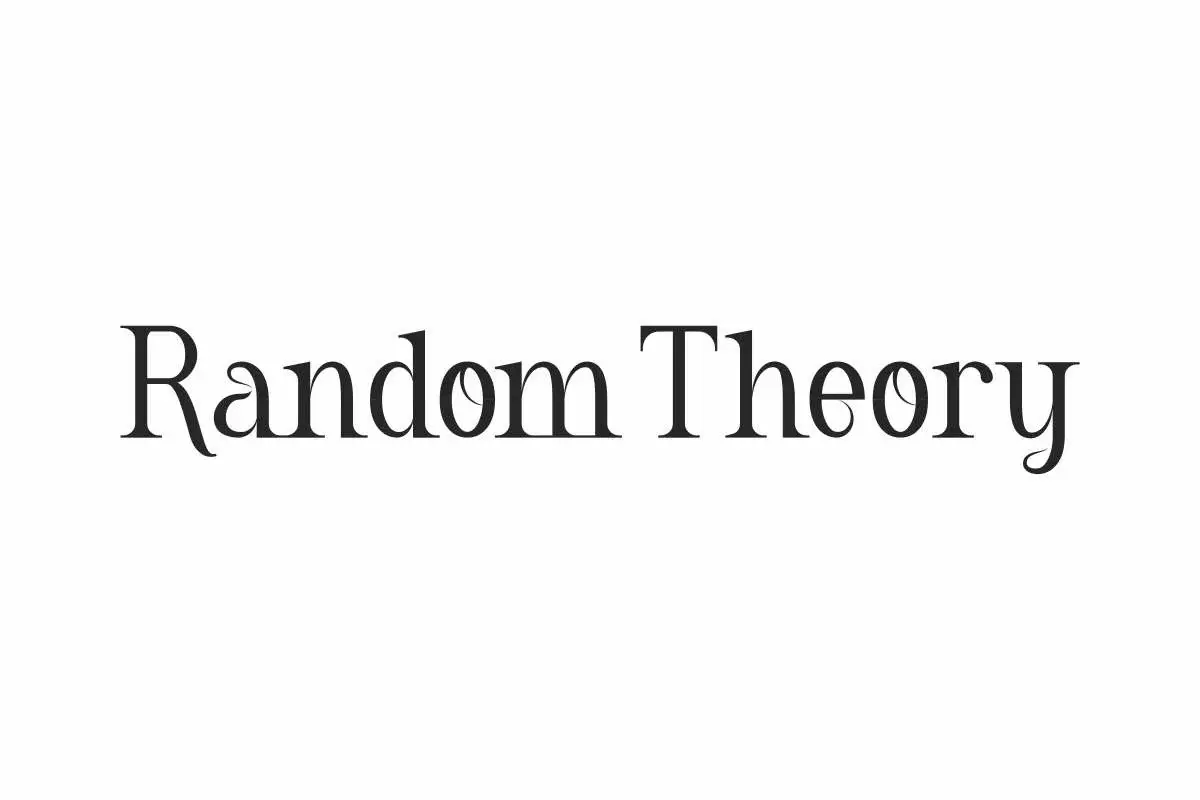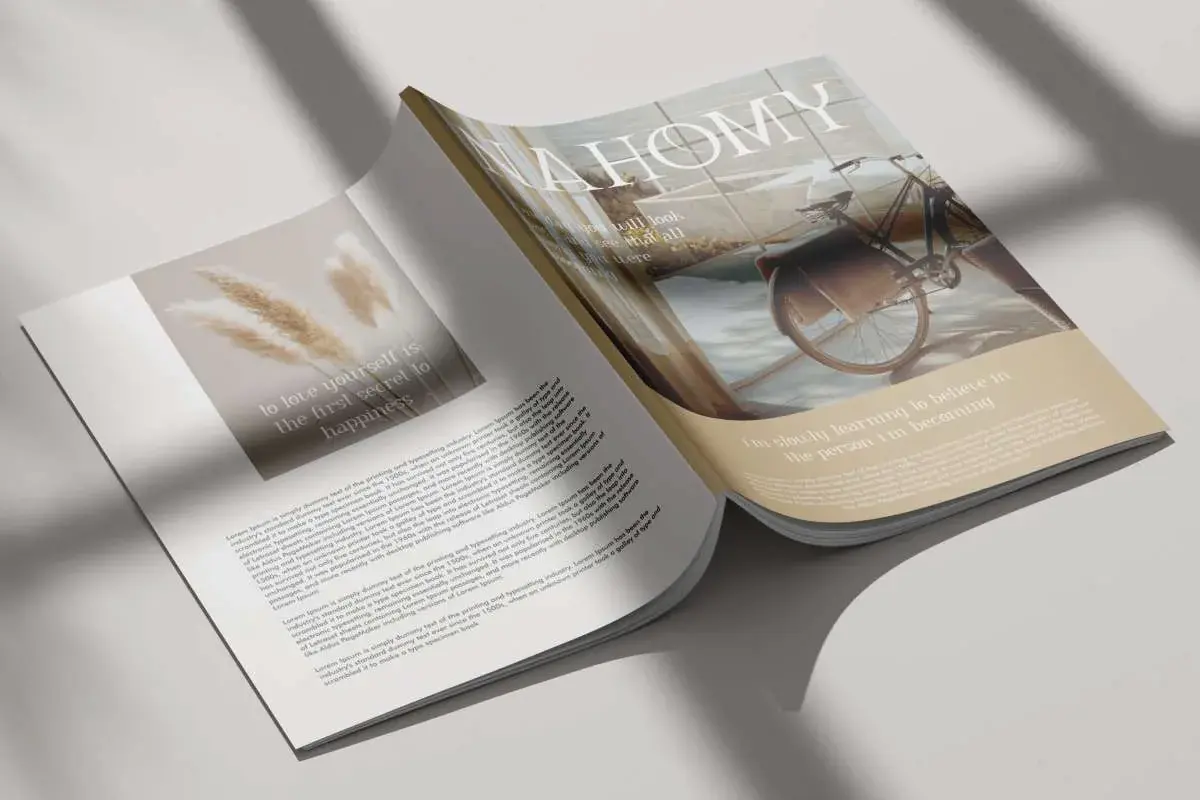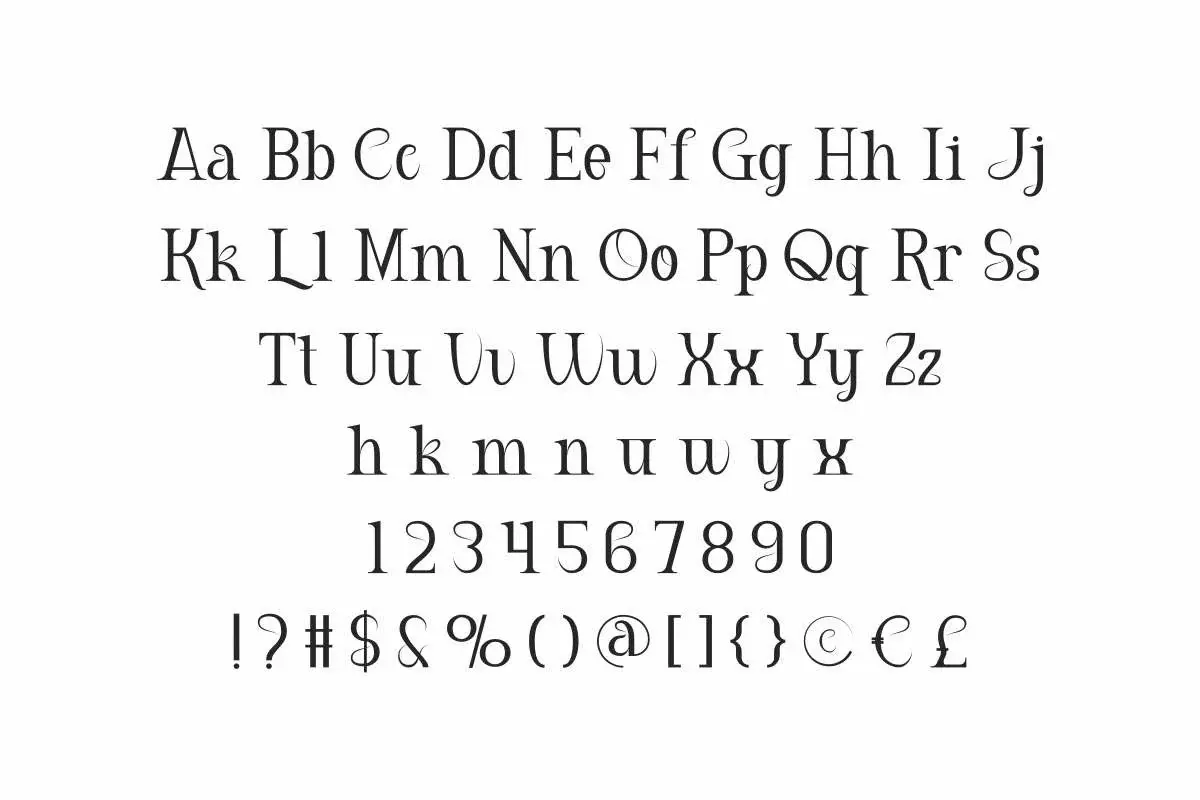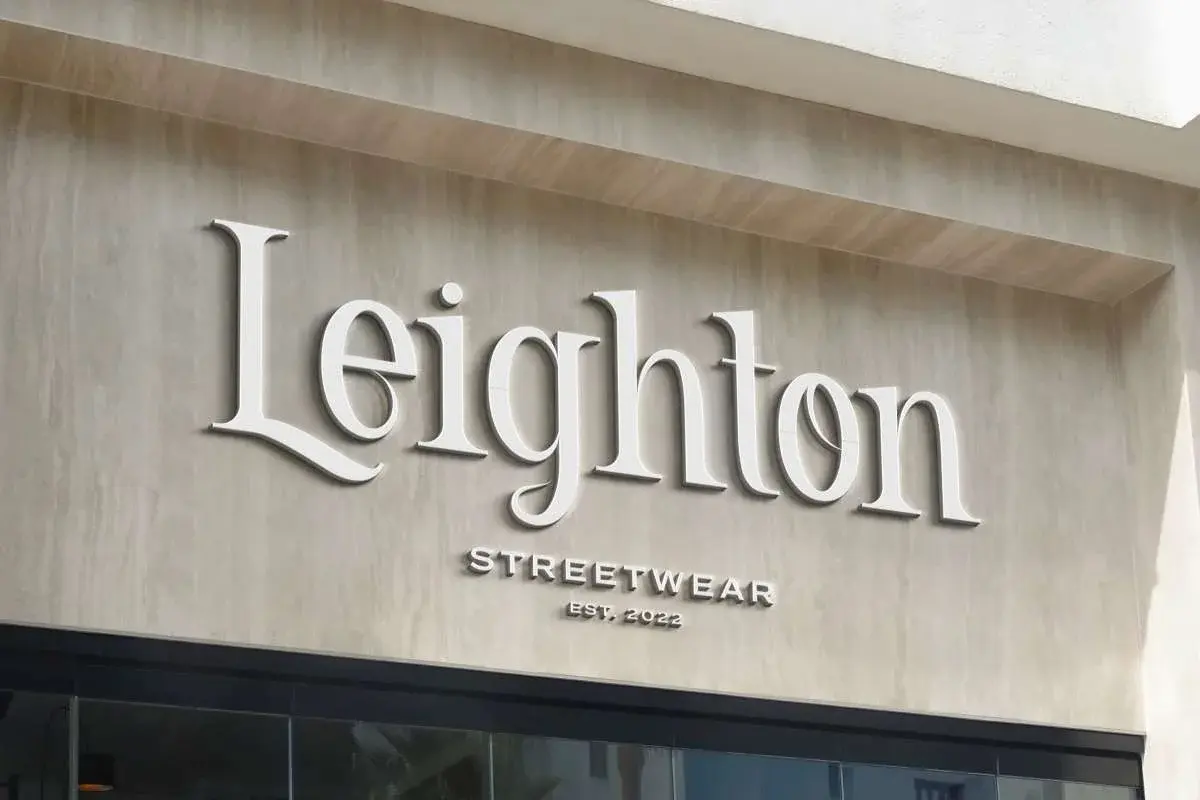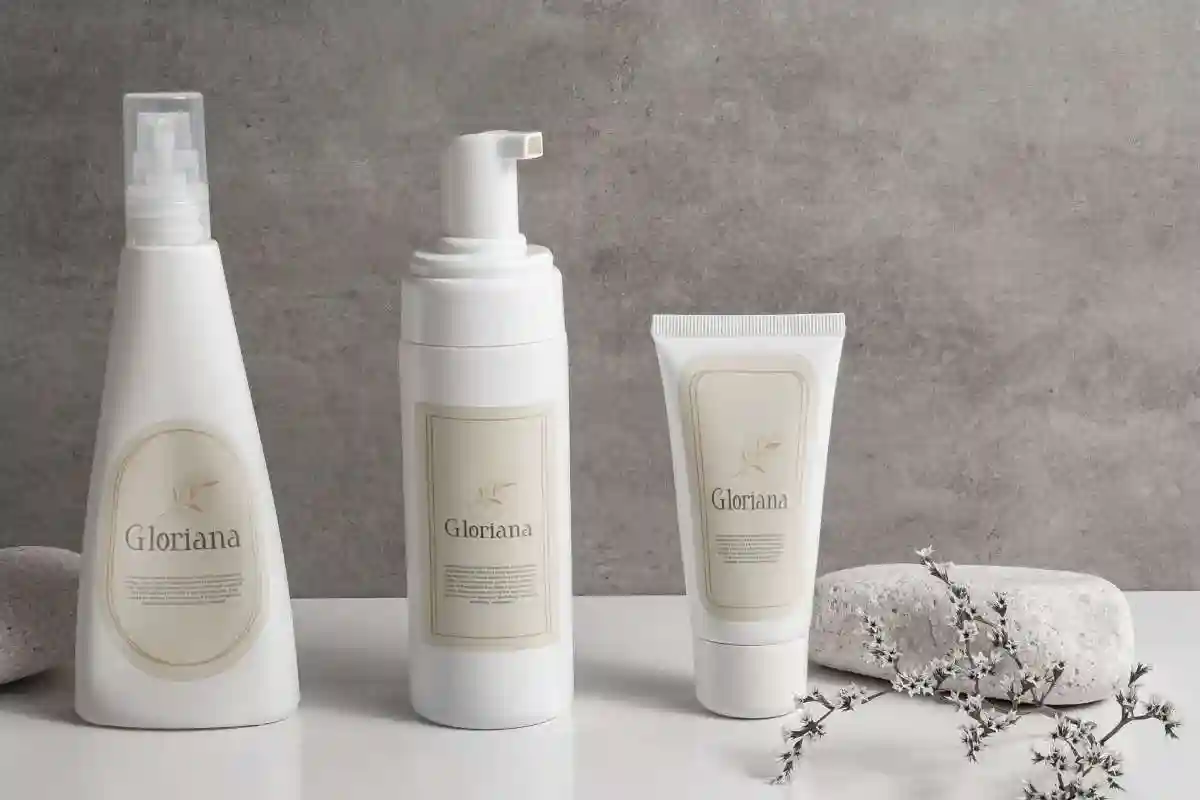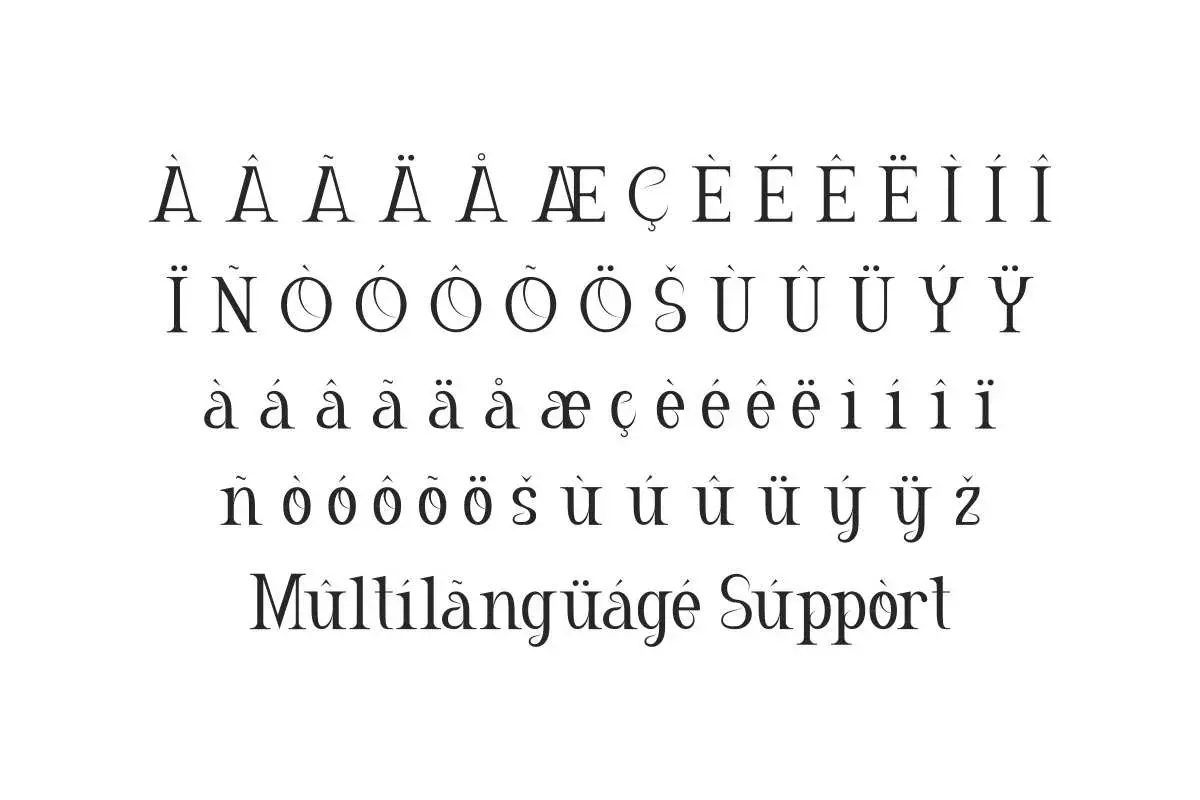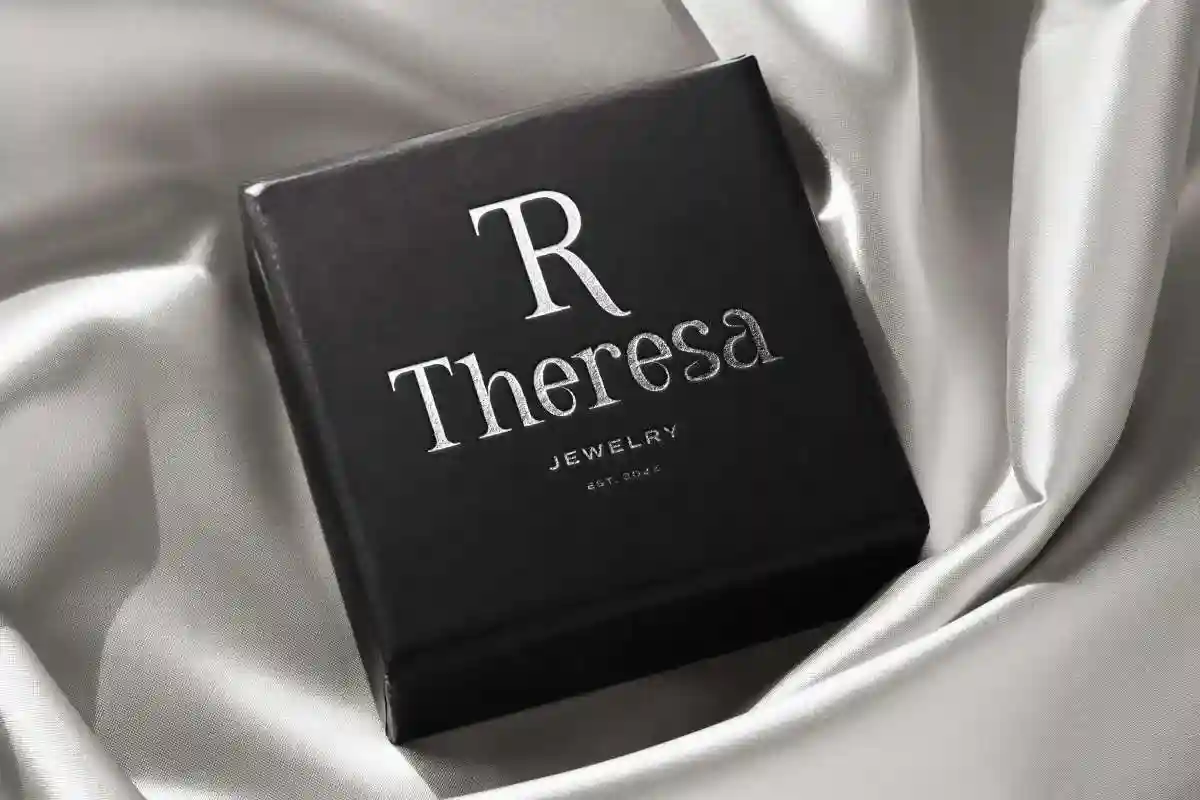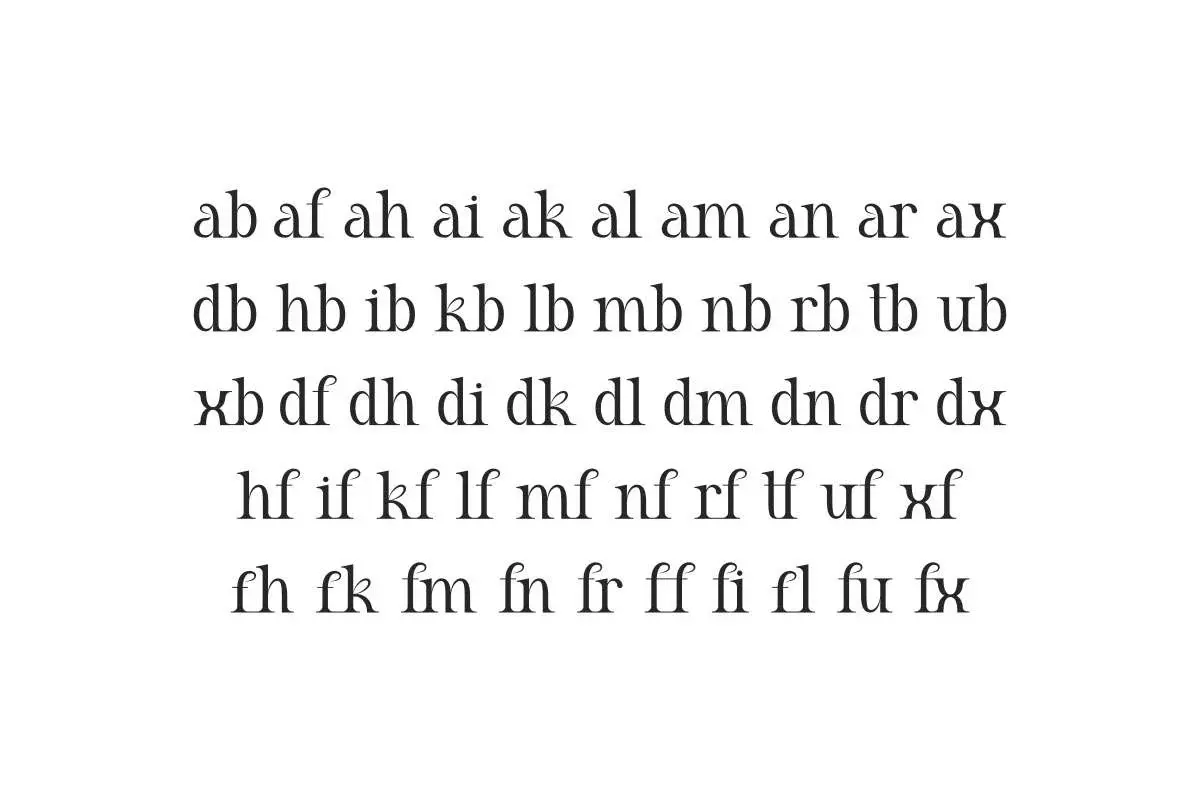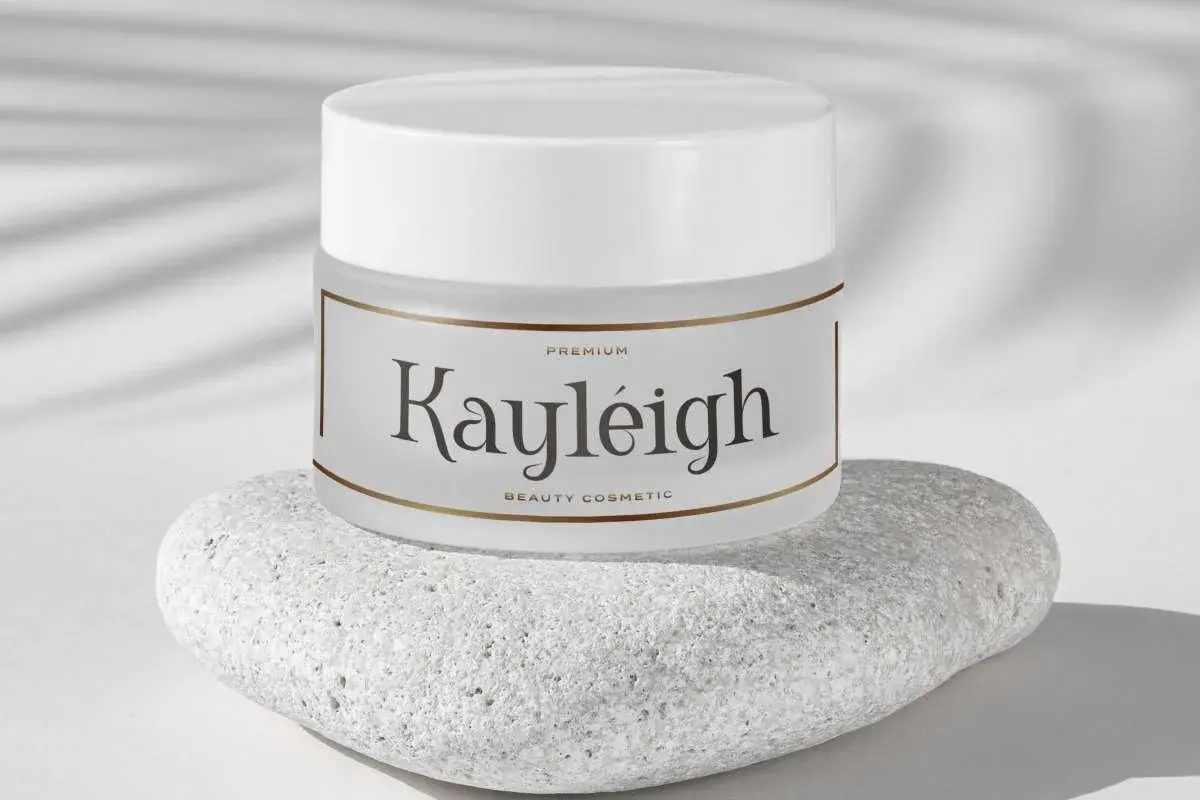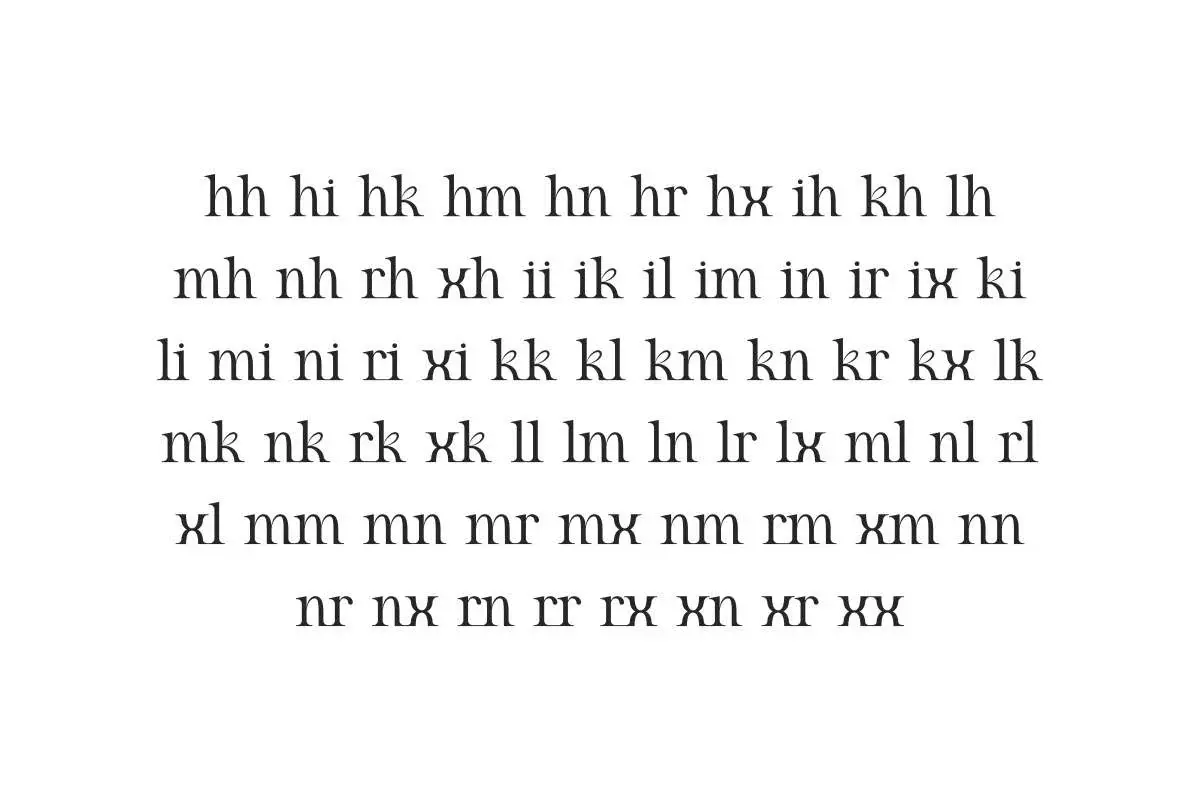
Random Theory Font is a stylish serif display font by NihStudio. This font is the best choice for apparel, cosmetic, jewelry, magazine catalog, quote art, writer, etc.
Random Theory Font is a stylish serif font that has curly lines on some of the letters that make them stand out. This font will be suitable for many industries such as, clothing, cosmetic, fashion, florist, furniture, jewelry, real estate, restaurant, spa salon, etc.
Random Theory Font will be suitable for billboard, brand logo, box jewelry, labels, magazine catalog, packaging design, quotes, signage, stationery, title, etc. This lovely font works well when paired with other fonts and is still easy to read.
Random Theory Font comes with full set of Uppercase and Lowercase Basic Characters, Number, Punctuation, Symbol, Ligature, and also supports multilingual characters. Ready to use both on Windows machine or Mac with simple installations. It’s tested to work well in the Adobe Apps (Illustrator, Adobe InDesign, Adobe Photoshop) CorelDraw, and others.